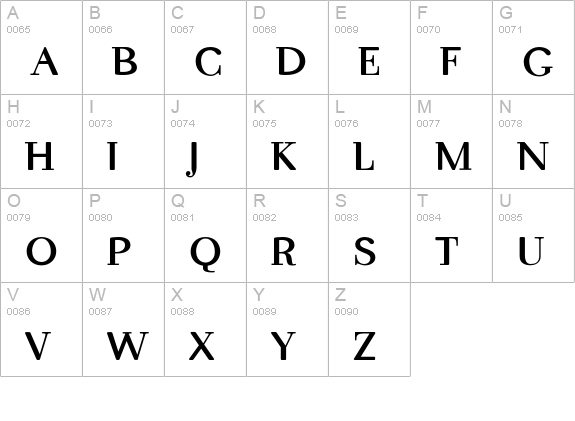
LeashFat Font Details
Introducing LeashFat font - a bold and captivating typeface that will make your designs stand out from the crowd. This font is the perfect choice for those seeking to make a powerful statement with their typography. Its strong and sturdy appearance exudes confidence, while its rounded edges add a touch of playfulness. LeashFat font is not only visually appealing, but also incredibly versatile. Whether you're creating a poster, logo, or website design, this font will effortlessly adapt to any project and bring it to life. Its bold strokes and generous spacing ensure maximum readability, making it ideal for both headlines and body text. One of the best features of LeashFat font is that it is available for free download at FontsMarket.com. That's right, you can get your hands on this stunning font without spending a dime. With just a few clicks, you can have access to a high-quality typeface that will take your designs to the next level. So why wait? Go ahead and download LeashFat font today and unleash your creativity. Whether you're a professional designer or a hobbyist, this font is sure to become a staple in your collection. Don't miss out on the opportunity to add this incredible font to your toolkit. Visit FontsMarket.com now and get your free copy of LeashFat font.